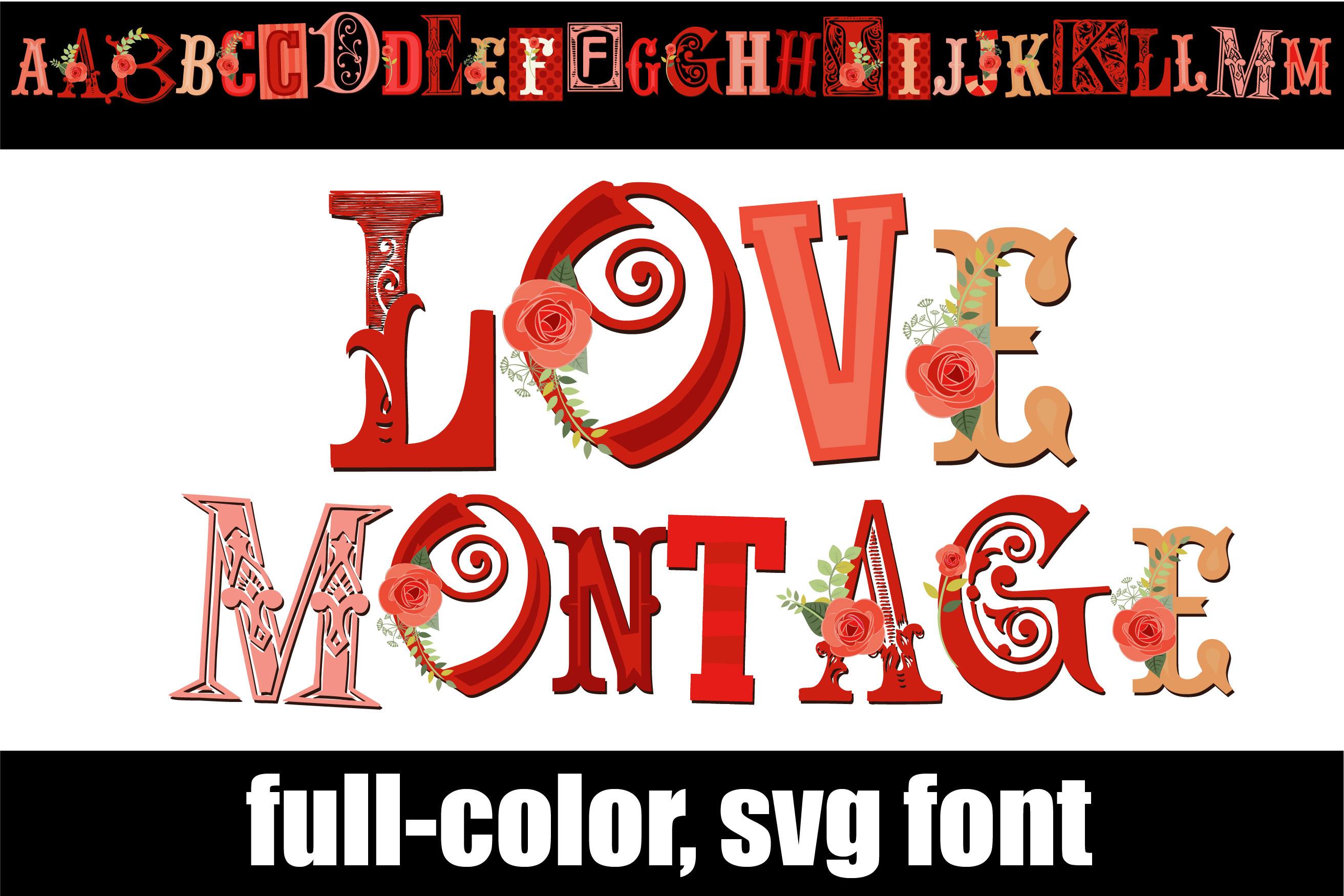
Love Montage Font Description
This full-color font is a montage of different lettering styles in a red/pink color palette. A second upper and lower alt case you can access through your system’s character map.